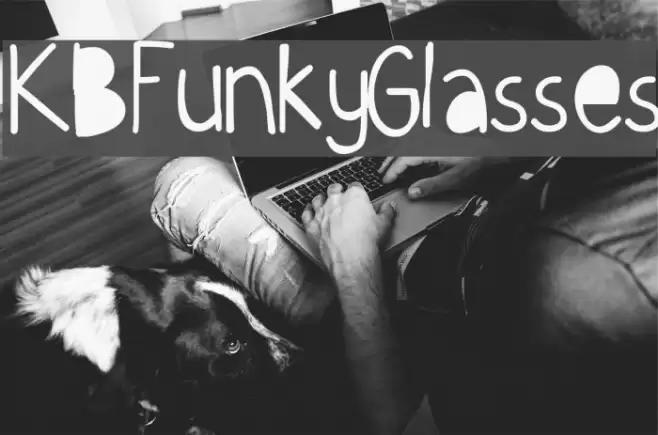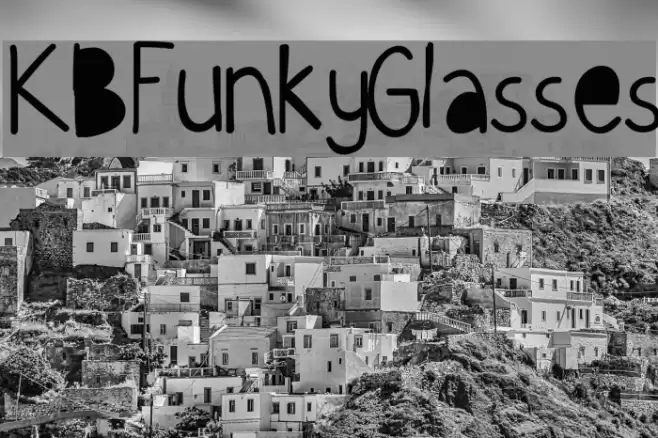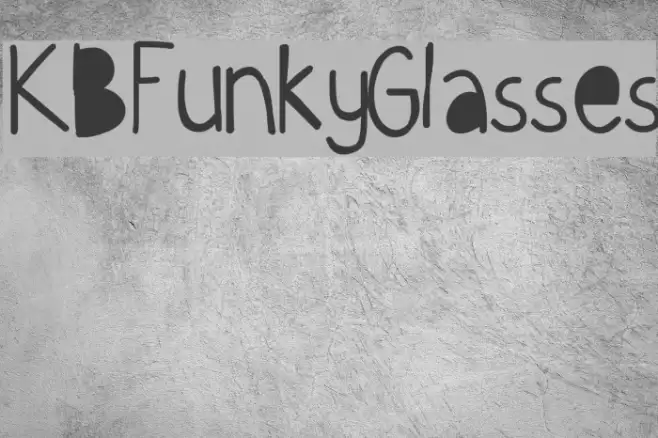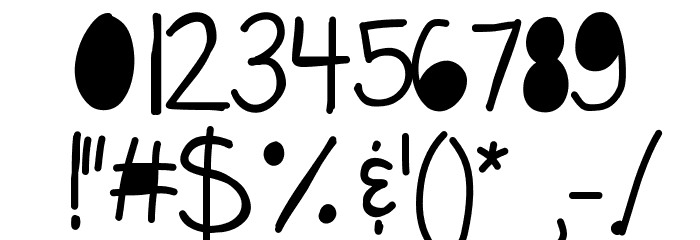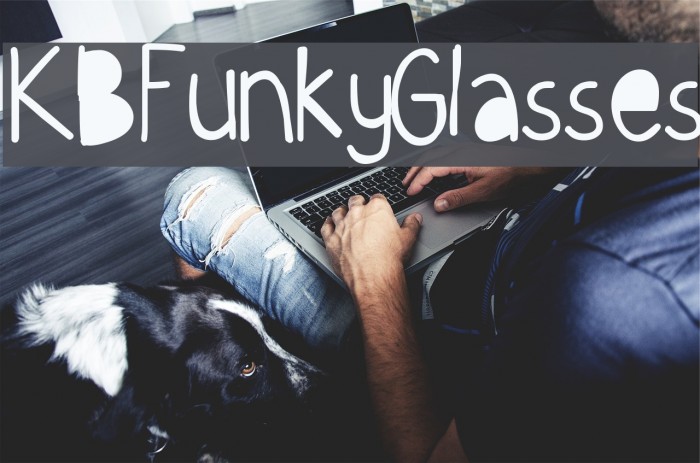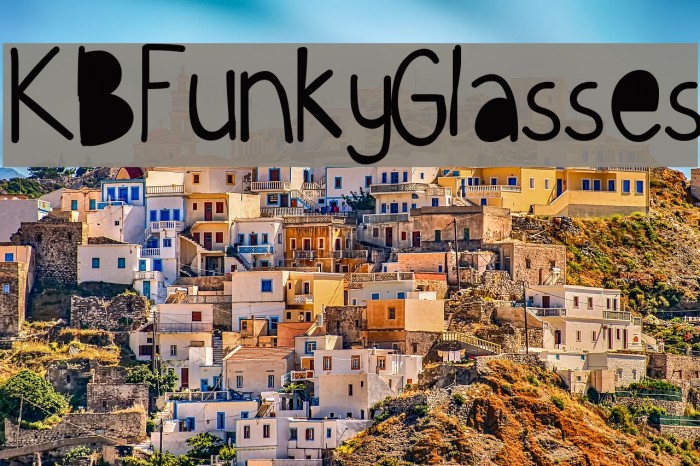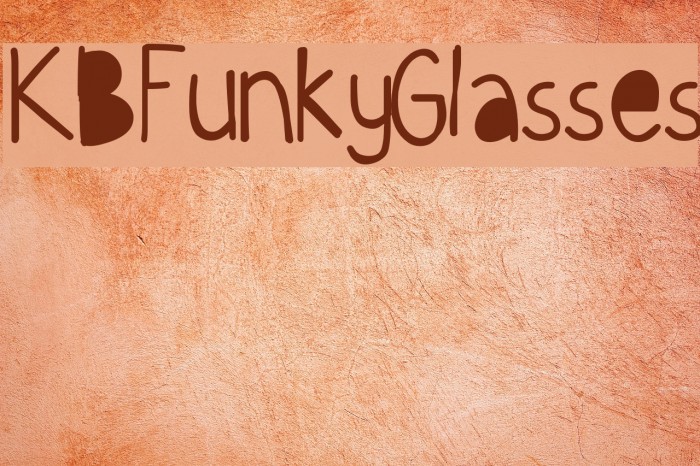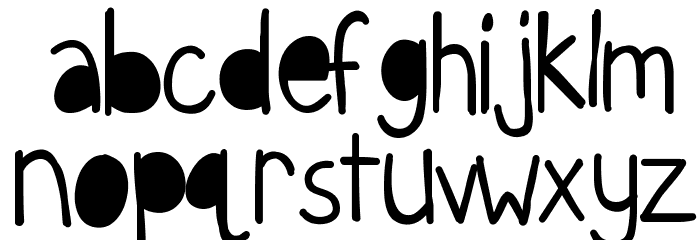
KBFunkyGlasses Font
KBFunkyGlasses Description
This playful and quirky font features a unique blend of bold and thin strokes, creating a dynamic and eye-catching appearance. The uppercase letters are characterized by their bold, rounded shapes, while the lowercase letters maintain a more slender and elongated form. Numbers and special characters follow the same playful style, adding to the font's overall whimsical nature. The font's distinctiveness lies in its irregular character shapes, which give it a hand-drawn, artistic feel. It's perfect for projects that require a fun and informal touch.
A playful, quirky font with bold and thin strokes, ideal for informal designs.
- Proposed Projects: Great for children's books, playful branding, party invitations, and creative posters.